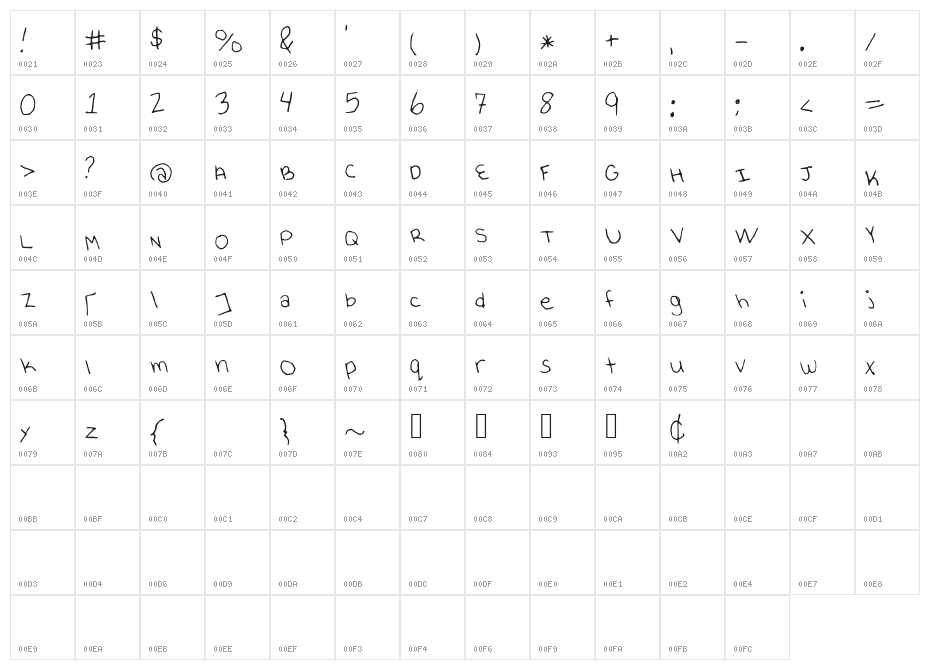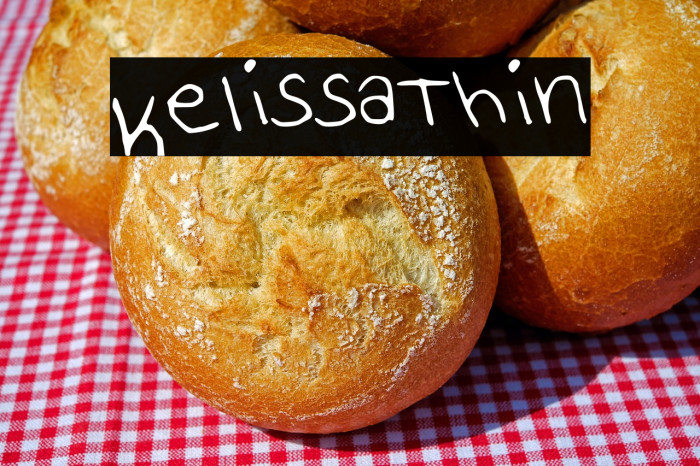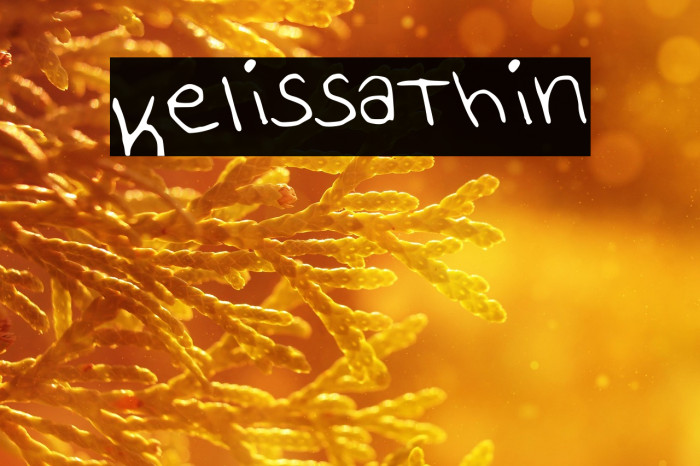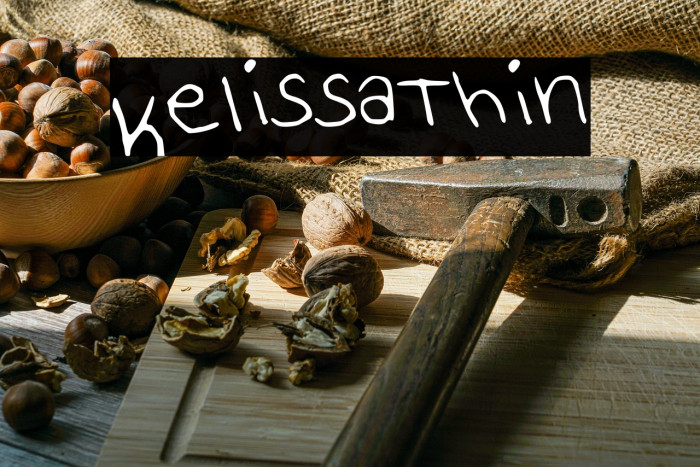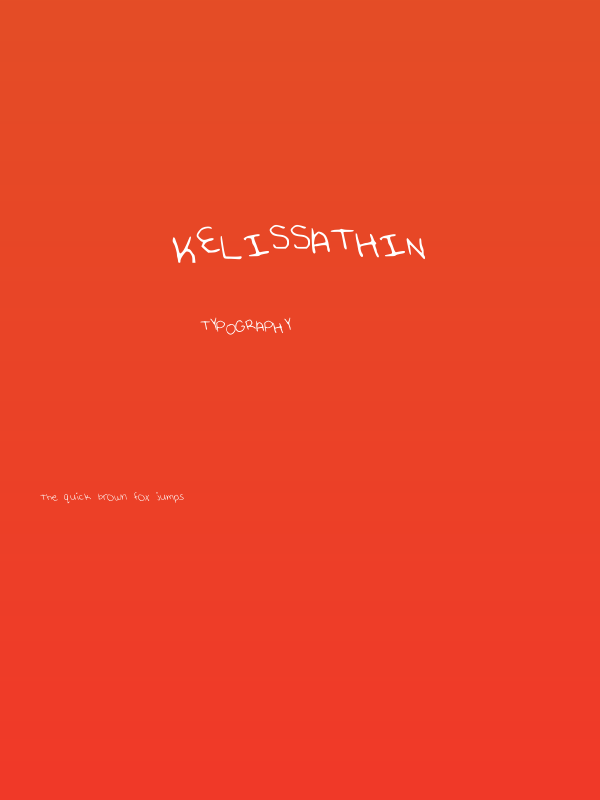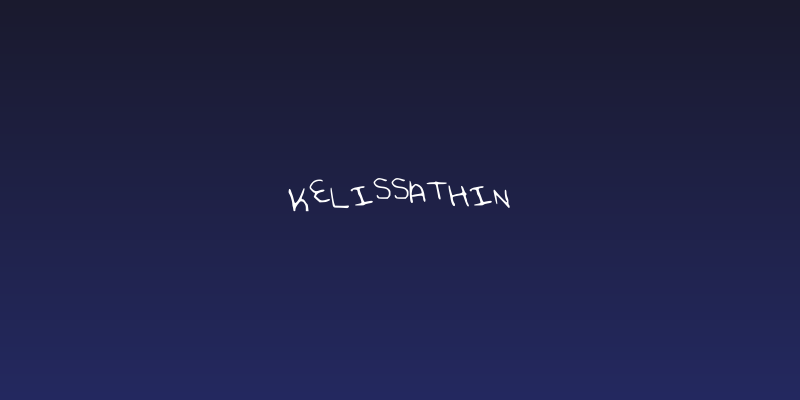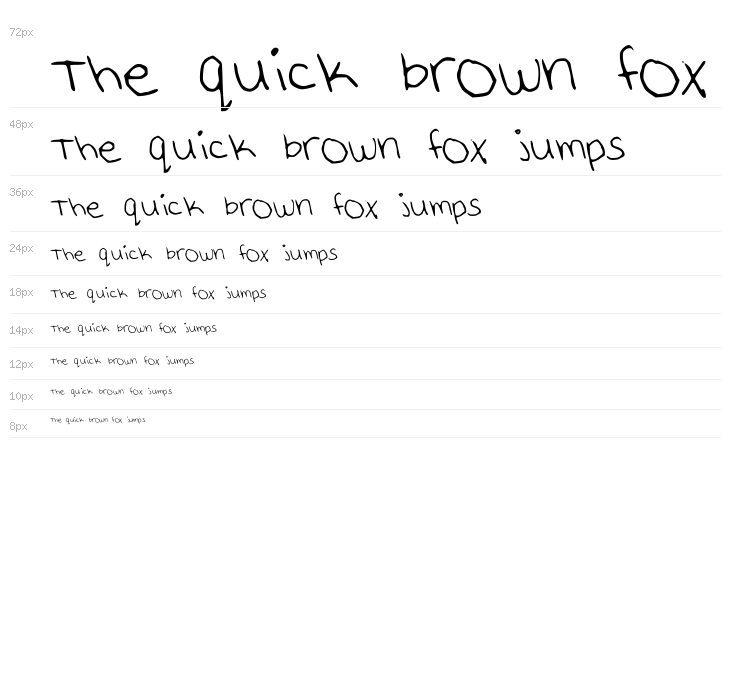
KelissaThin Font
KelissaThin Description
This font exhibits a playful and informal handwritten style, characterized by its irregular, slightly wobbly lines that give it a casual and approachable feel. The letters are distinct and easily readable, with a consistent stroke width that maintains clarity across both uppercase and lowercase characters. The numerals and special characters follow the same whimsical design, making the font versatile for various creative applications. Its unique charm lies in the imperfect, human touch that mimics natural handwriting, making it suitable for projects that require a personal or informal tone.